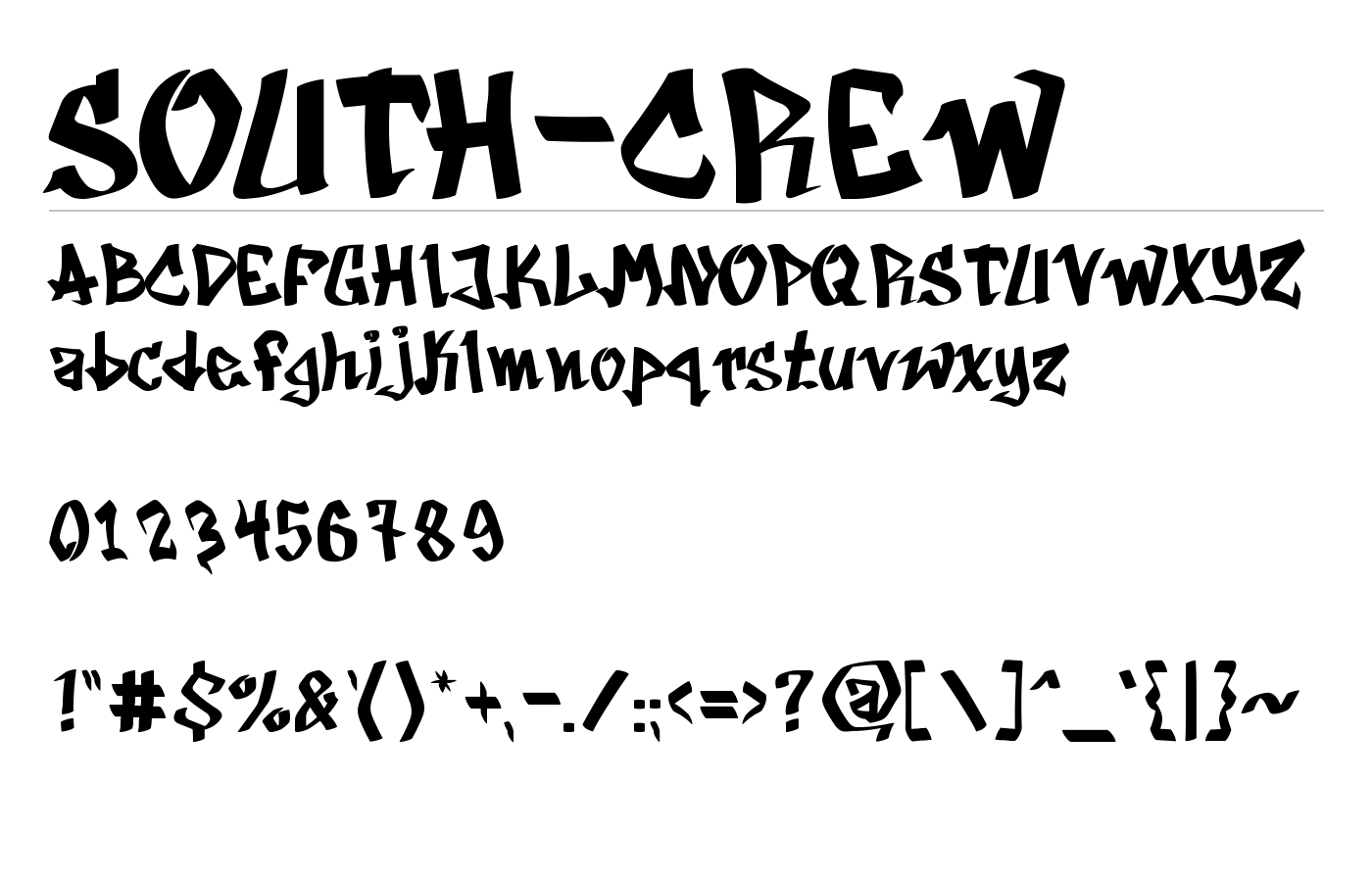
South Crew is a bold, hand-drawn display font with an urban, graffiti-inspired style, characterized by its irregular, dynamic strokes and playful letterforms. Its informal yet edgy personality makes it ideal for streetwear branding, posters, and creative projects that seek a vibrant and rebellious vibe. This font stands out best in headlines and logo designs where a distinctive, energetic impact is desired.
South Crew Font
About South Crew Font
| Font family | South Crew Font |
| Release date | 2021-07-17 |
| Designer | Tokopress Team |